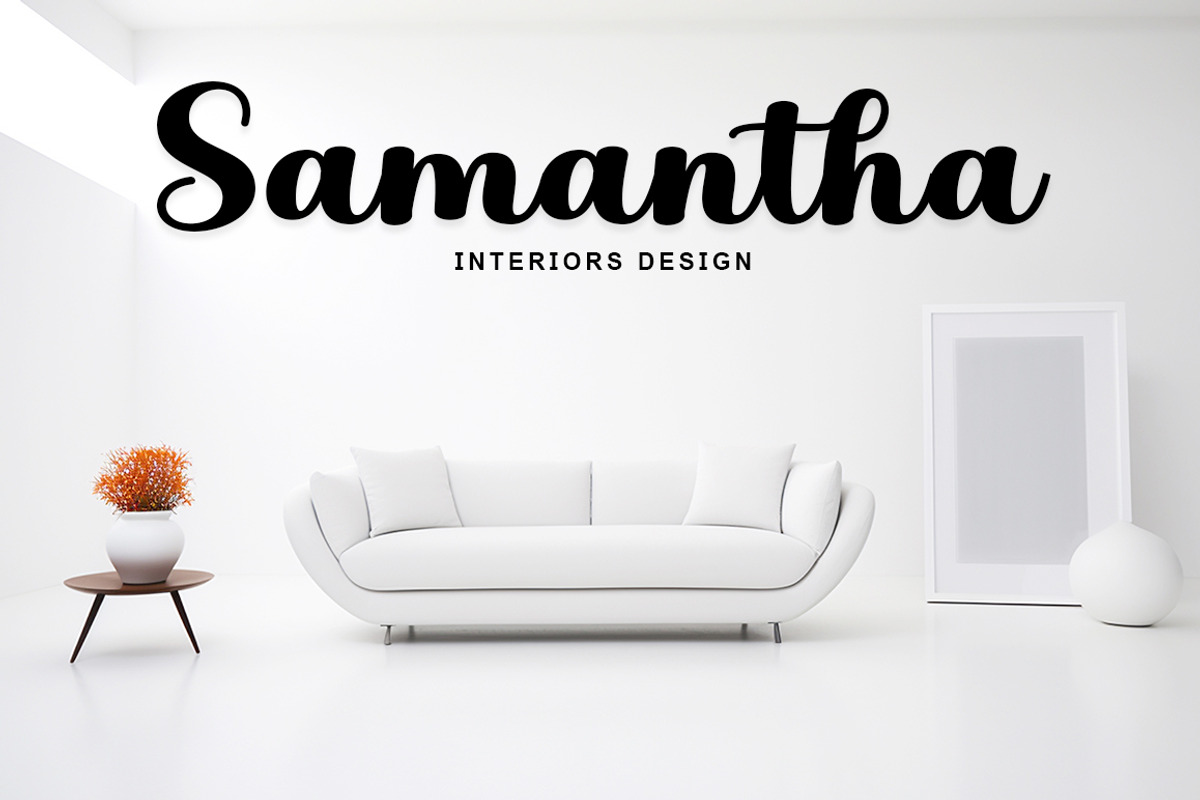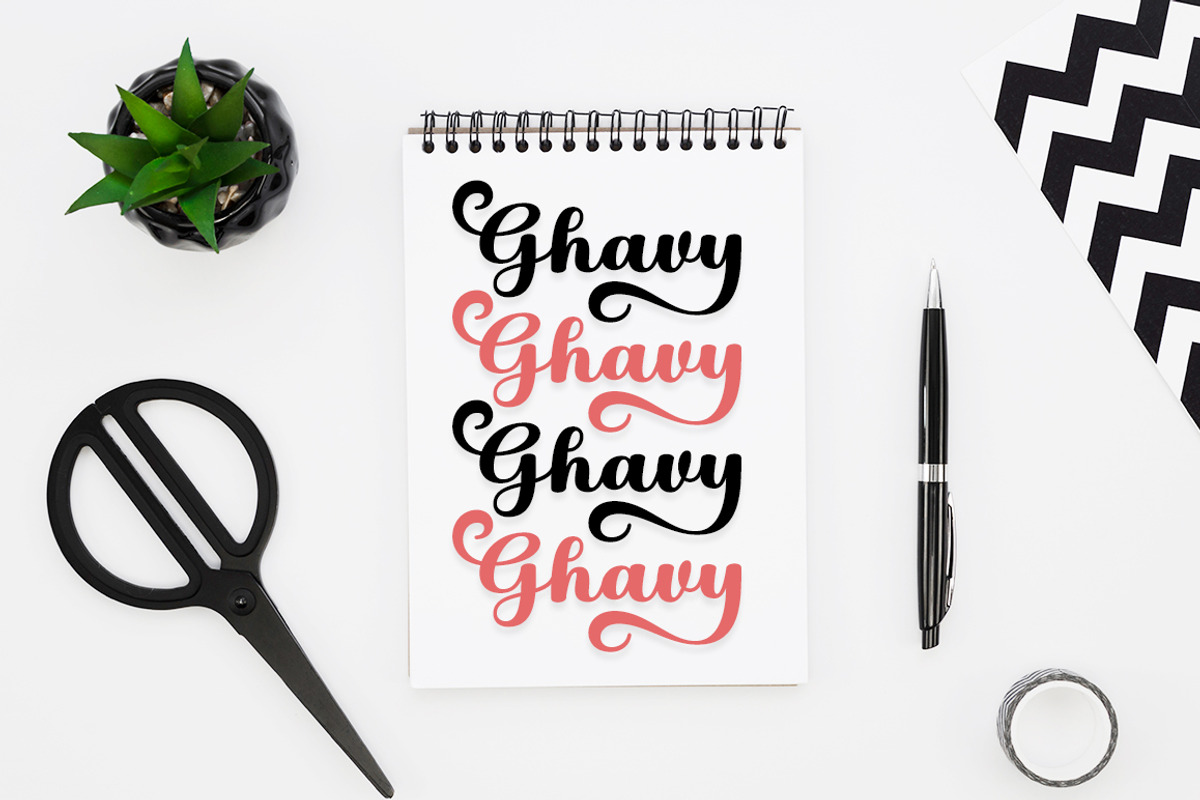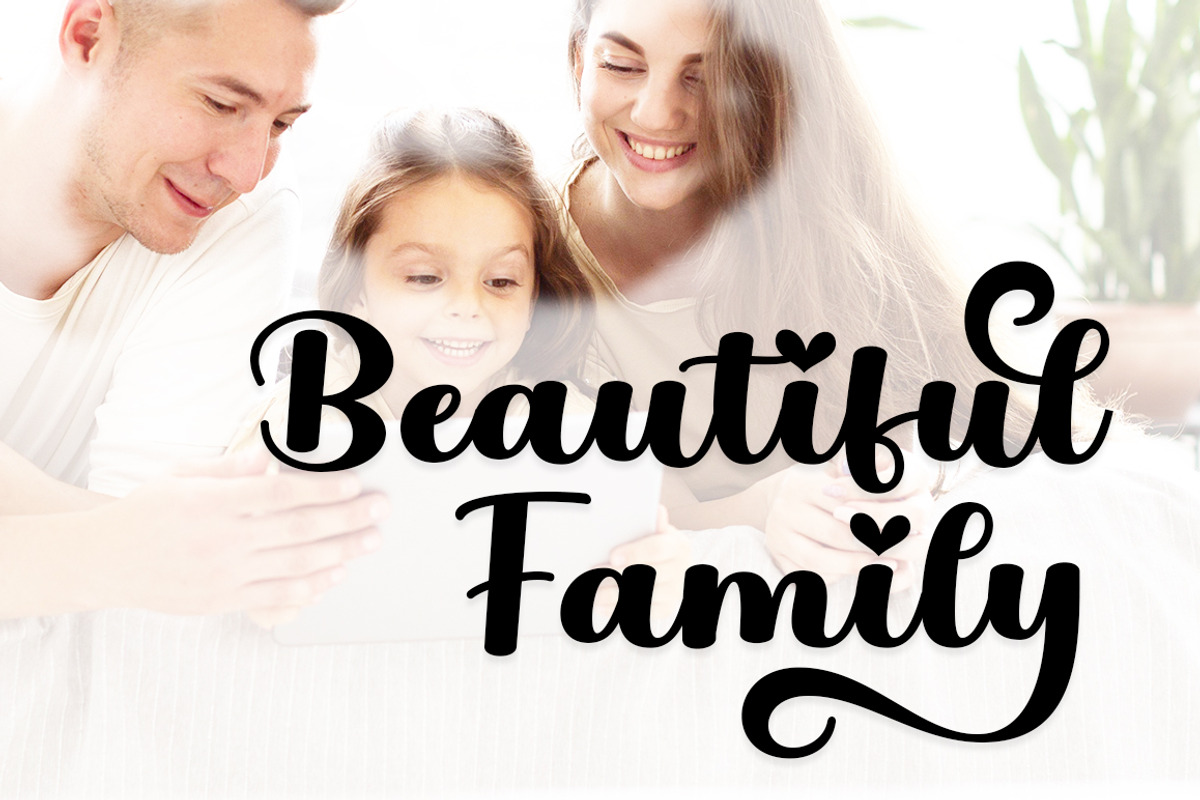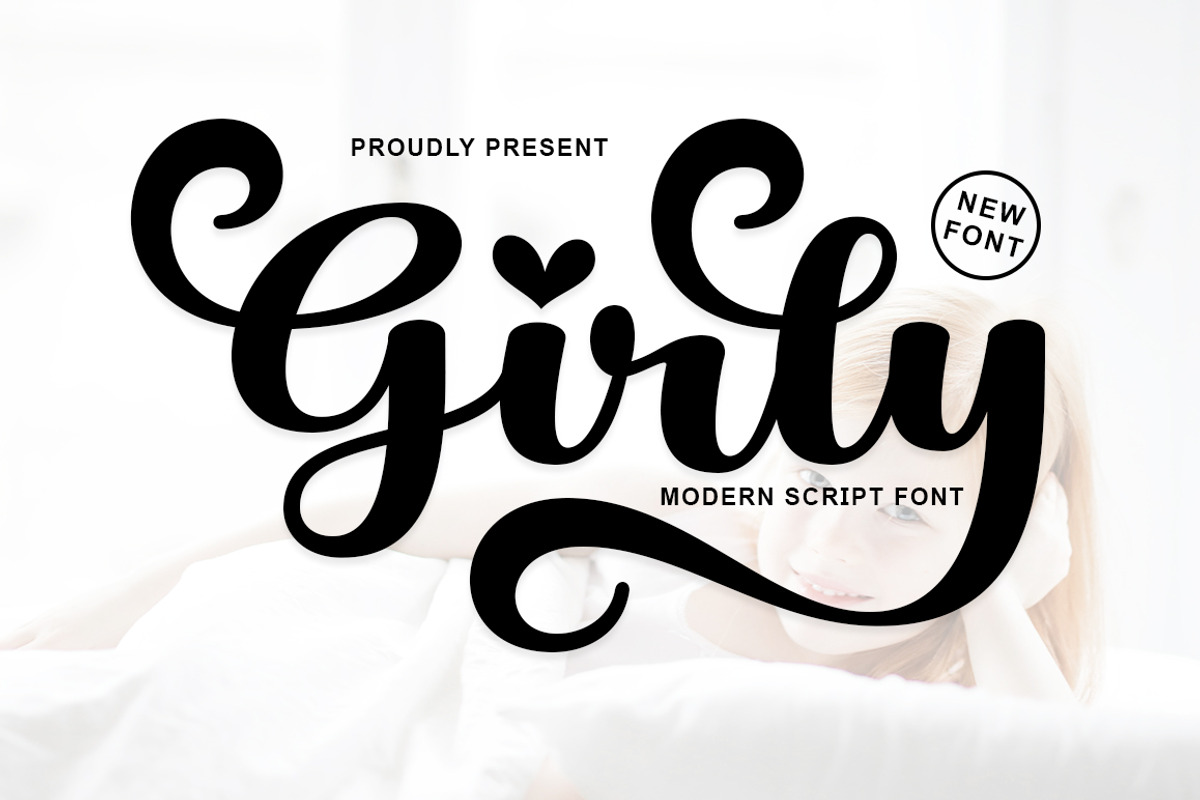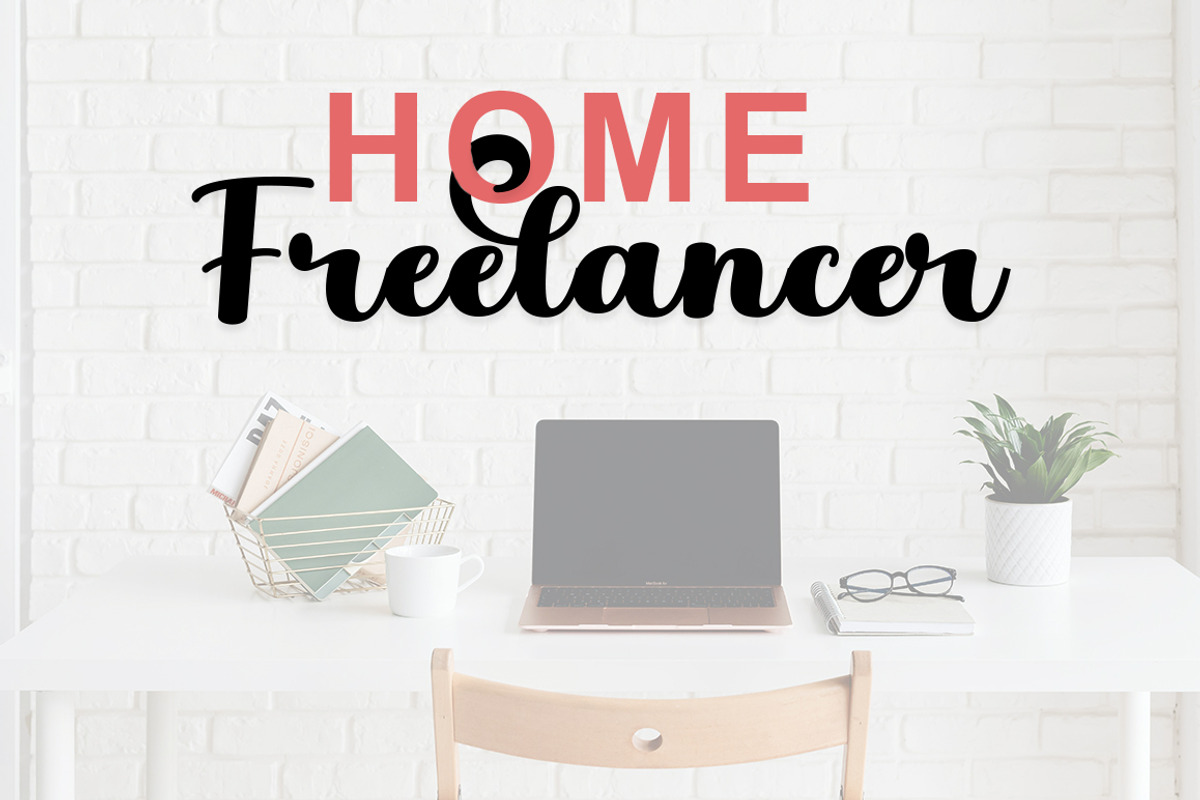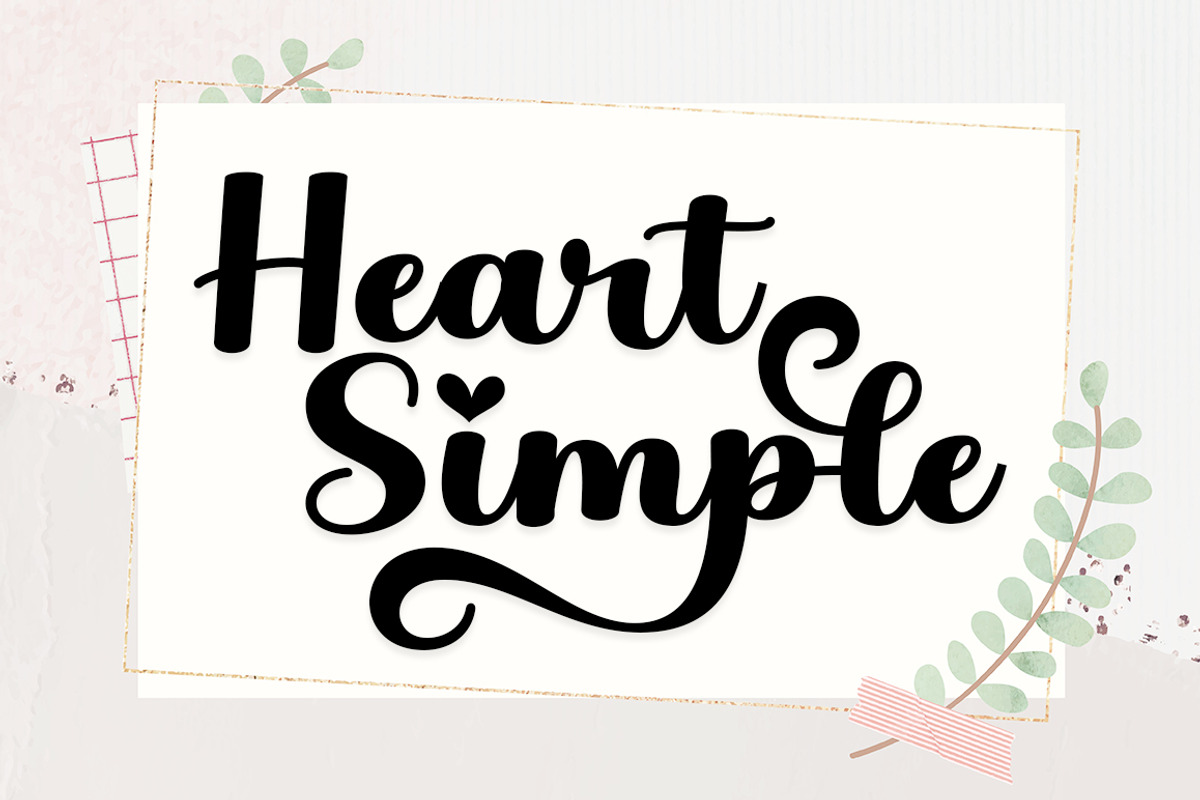
Girly
Girly Script is a romantic and sweet calligraphy typeface with characters that dance along the baseline. It has a casual and yet elegant touch. It can be used for various purposes such as logos, wedding invitations, headings, t-shirts, letterheads, signage, labels, news, posters, badges etc.
The fonts include OpenType features with stylistic alternates, ligatures and multiple language support.